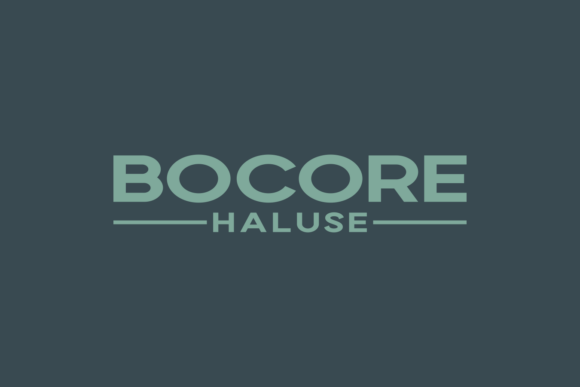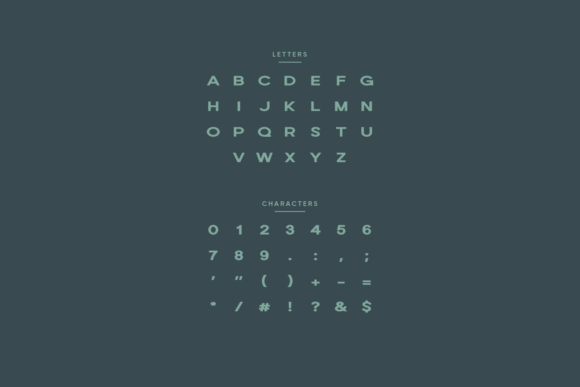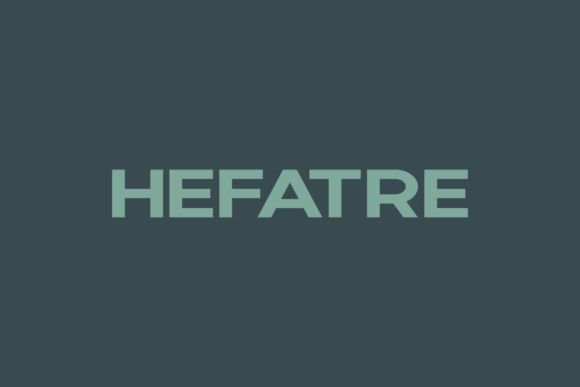
Designing the Future: The Birth of Eforte Font
Imagine you’re in a design studio, surrounded by blank canvases and endless possibilities. Your task is to create a logo that embodies the spirit of innovation and forward-thinking. You start sketching, experimenting with different shapes and lines until suddenly, it clicks – the perfect combination of form and function emerges. This is the creative moment that sparked the development of Eforte Font, a sans serif masterpiece designed to elevate corporate communications and captivate audiences worldwide.
Eforte Font is more than just a typeface; it’s a versatile tool for designers to convey their message effectively. With its clean lines, geometric shapes, and modern aesthetic, it’s the perfect choice for branding products, logos, titles, and headlines. Whether you’re working on a digital ad or a screen display, Eforte Font adapts seamlessly to any medium, making it an invaluable asset for designers.
Eforte Font Key Features
- Font Family: Eforte Font is a sans-serif font family that includes multiple styles and weights.
- Unique Characteristics: Eforte Font features a clean and modern design, with a distinctive x-height and geometric shapes that make it highly legible and versatile.
- Character Set: Includes a comprehensive character set, including Latin, Cyrillic, and Greek alphabets, as well as punctuation and symbol glyphs.
Eforte Font Review
I recently had the chance to work with the Eforte Font, and I’m excited to share my thoughts on this stylish typeface. ✨ The first thing that caught my attention was its unique blend of modern and vintage elements. The font is perfect for creating a unique visual identity for your brand or design project.
- ✨ Unique blend of modern and vintage elements
- ✨ Perfect for creating a unique visual identity
- ✨ Supports a wide range of languages
- ✨ Available in various font weights and styles
- ⚠️ Limited font sizes for some weights
- ⚠️ Some characters may not be optimized for certain languages
- ⚠️ Not as widely supported as other popular fonts
Overall, I’m impressed with the Eforte Font’s unique style and versatility. While it has some limitations, I think it’s a great choice for designers looking to add a touch of elegance and sophistication to their projects.
Tips for Getting the Most Out of Eforte Font
Use the Eforte Font with a clean and simple design to make your text stand out.
Experiment with different font sizes and styles to add visual interest.
Use the Eforte Font for headings and titles to create a professional look.
Business presentations and reports
Marketing materials and brochures
Editorial and publishing projects
Alternatives to Eforte Font
Great Vibes Font is a beautiful, handwritten font that is perfect for creating a friendly and approachable atmosphere. It’s ideal for use in logos, branding, and advertising materials where a personal touch is desired. Great Vibes Font is more elegant and refined compared to Eforte Font, which makes it suitable for high-end or luxury brands.
Pacifico Font is a modern, elegant script font that is great for creating a sense of sophistication and luxury. It’s perfect for use in branding, advertising, and packaging materials where a high-end feel is desired. Compared to Eforte Font, Pacifico Font is more polished and refined, making it suitable for use in high-end or premium brands.
Dancing Script Font is a fun, energetic font that is perfect for creating a lively and playful atmosphere. It’s ideal for use in advertising, social media, and entertainment materials where a sense of excitement is desired. Compared to Eforte Font, Dancing Script Font is more playful and dynamic, making it suitable for use in youth-oriented or entertainment brands.
Q: Can I customize Eforte Font to fit my specific design needs?
Eforte Font is designed to be highly customizable. You can adjust font metrics, spacing, and other parameters using a font editor or design application that supports OpenType features. However, some customizations may require advanced technical knowledge or specialized software.